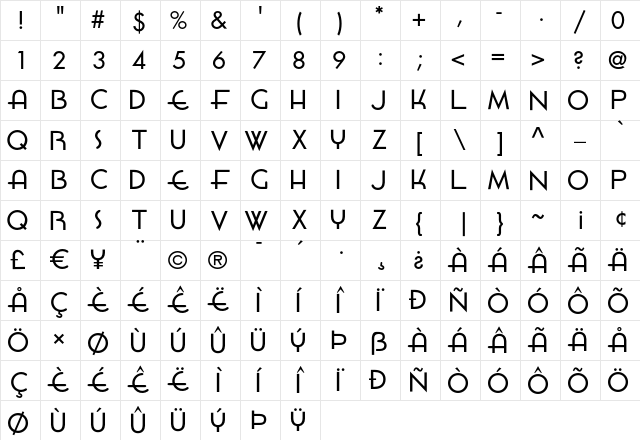
HamburgerSandwitch Regular
Design Context for HamburgerSandwitch
HamburgerSandwitch is a composed and adaptable typeface that performs quietly and consistently across a wide range of design contexts.